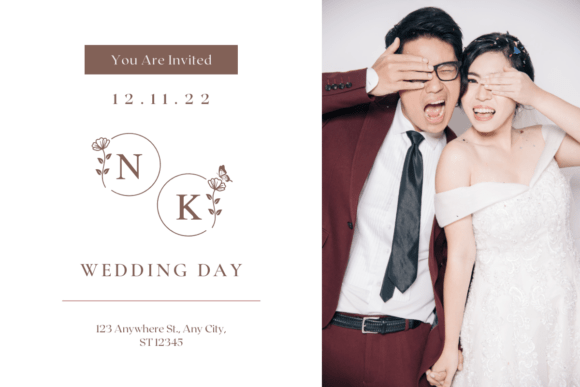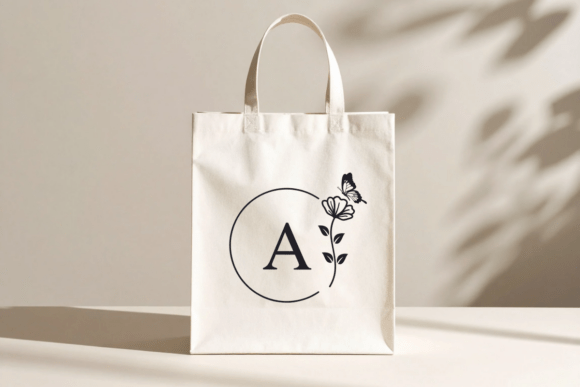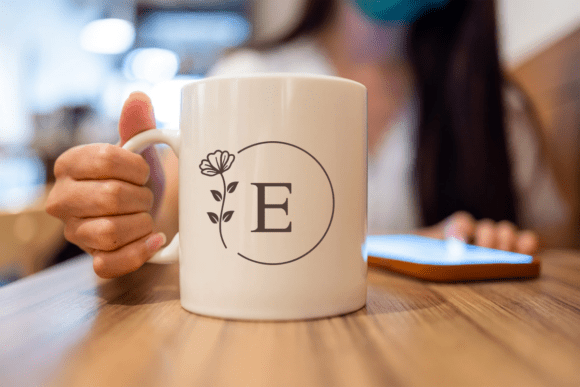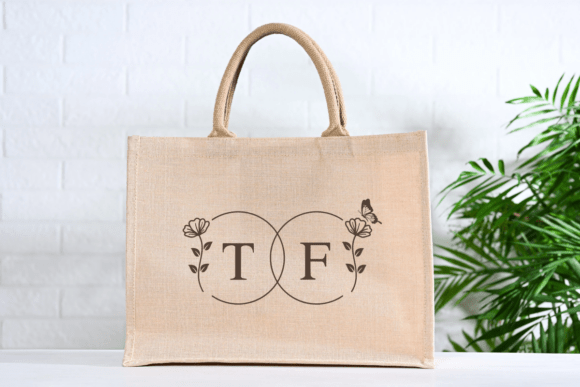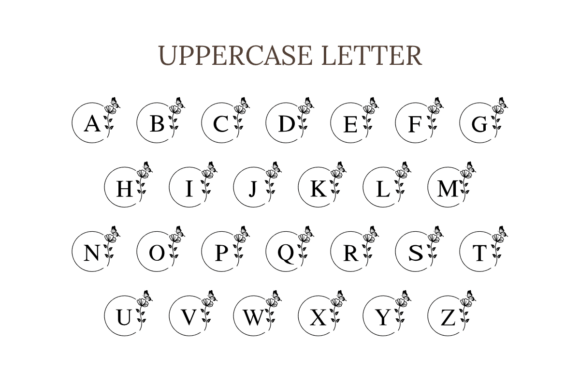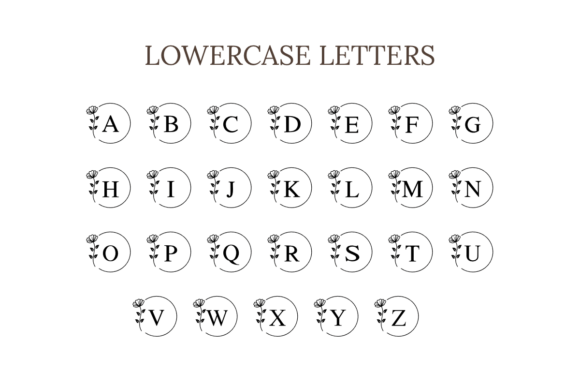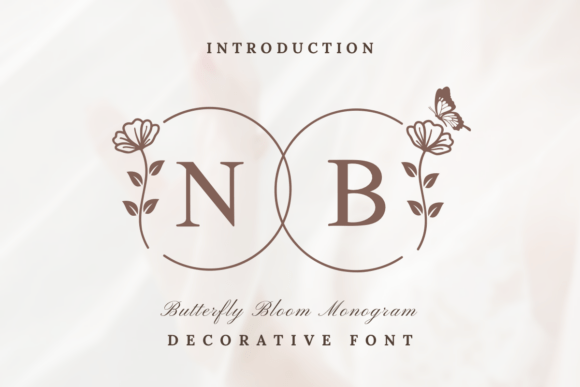
The Butterfly Bloom Monogram Font: A Masterclass in Elegance and Botanical Beauty
I still remember the design project that led me to discover the Butterfly Bloom Monogram font. I was working on a wedding stationery suite for a client who wanted to convey a sense of romance, luxury, and whimsy. As I scrolled through font after font, nothing seemed to capture the essence of her vision – until I stumbled upon this stunning typeface. The intricate floral illustrations, the delicate serif characters, and the fluttering butterfly accents all combined to create a sense of organic luxury that I knew would be perfect for her project.
• ✅ The unique blend of serif characters and floral illustrations creates a truly one-of-a-kind look.
• ✅ The font’s elegance and sophistication make it perfect for high-end branding and luxury projects.
• ✅ The intricate details and illustrations add a touch of whimsy and romance to any design.
• ✅ The font’s versatility allows it to be used in a variety of applications, from wedding stationery to boutique packaging.
While the Butterfly Bloom Monogram font is a true gem, it’s not without its quirks. For example, the font can be a bit finicky when it comes to kerning and spacing. Some characters may require manual adjustment to ensure they look their best. Additionally, the font’s intricate illustrations can make it difficult to use in very small sizes. However, with a little patience and practice, these limitations can easily be overcome.
The Designer Inspiration Behind the Font
The Butterfly Bloom Monogram font was inspired by the beauty of nature and the elegance of luxury branding. The designer, who wishes to remain anonymous, was inspired by the intricate details of botanical illustrations and the delicate beauty of butterflies. The result is a font that is both elegant and whimsical, perfect for high-end branding and luxury projects.
What is the best way to use the Butterfly Bloom Monogram font? The Butterfly Bloom Monogram font is best used as a centerpiece for high-end branding and luxury projects, such as wedding stationery, boutique packaging, and personalized jewelry branding.